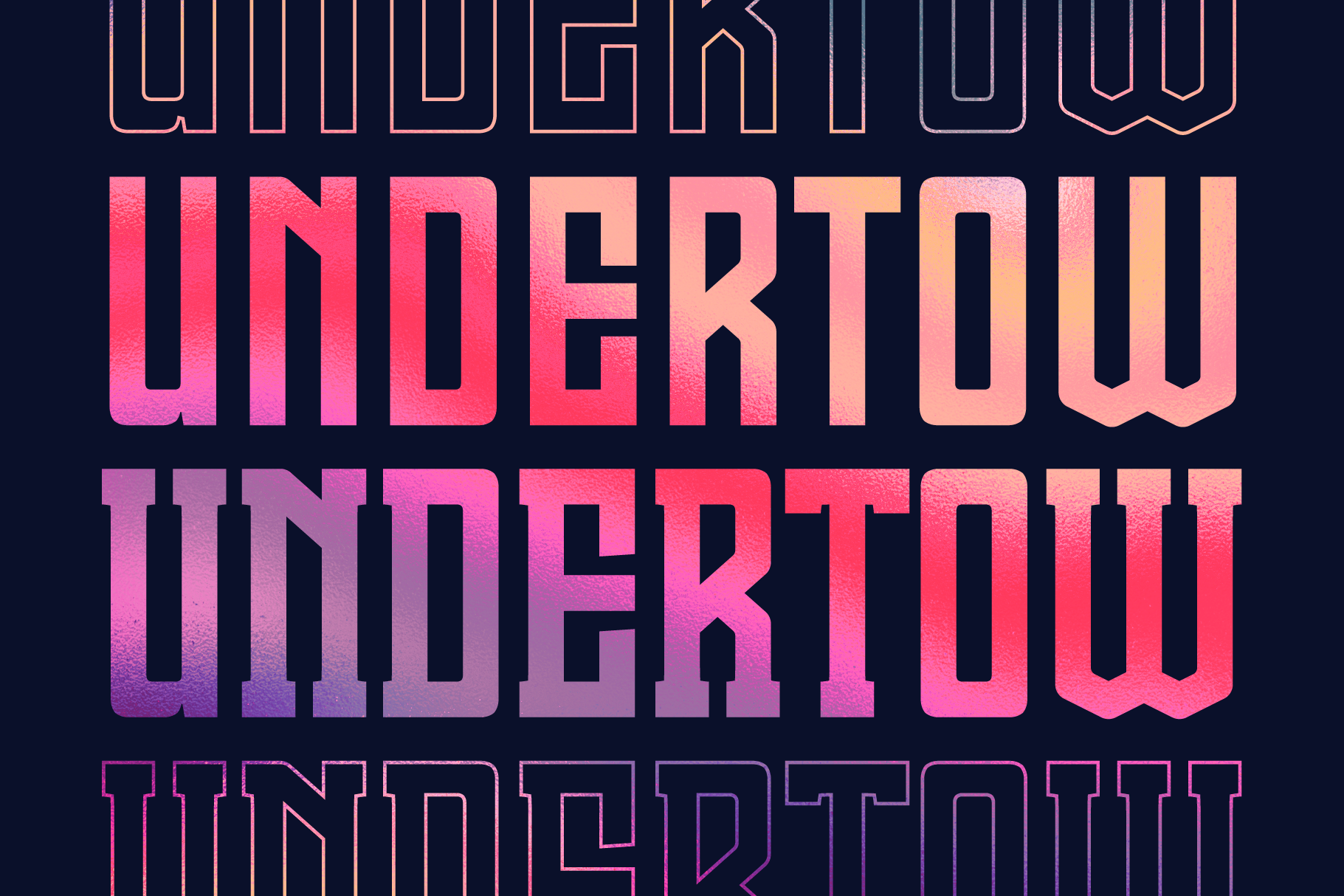
UNDERTOW Sans & Serif Font
UNDERTOW Sans Serif & Slab Serif Typeface
"Undertow" Is a clean bold typeface with a angled approach to characters, simple yet clean but useable as body text or as a Display font.
Designed in full Upper, Lower, Numeral and Extended Characters in both Regular & Slab styles.